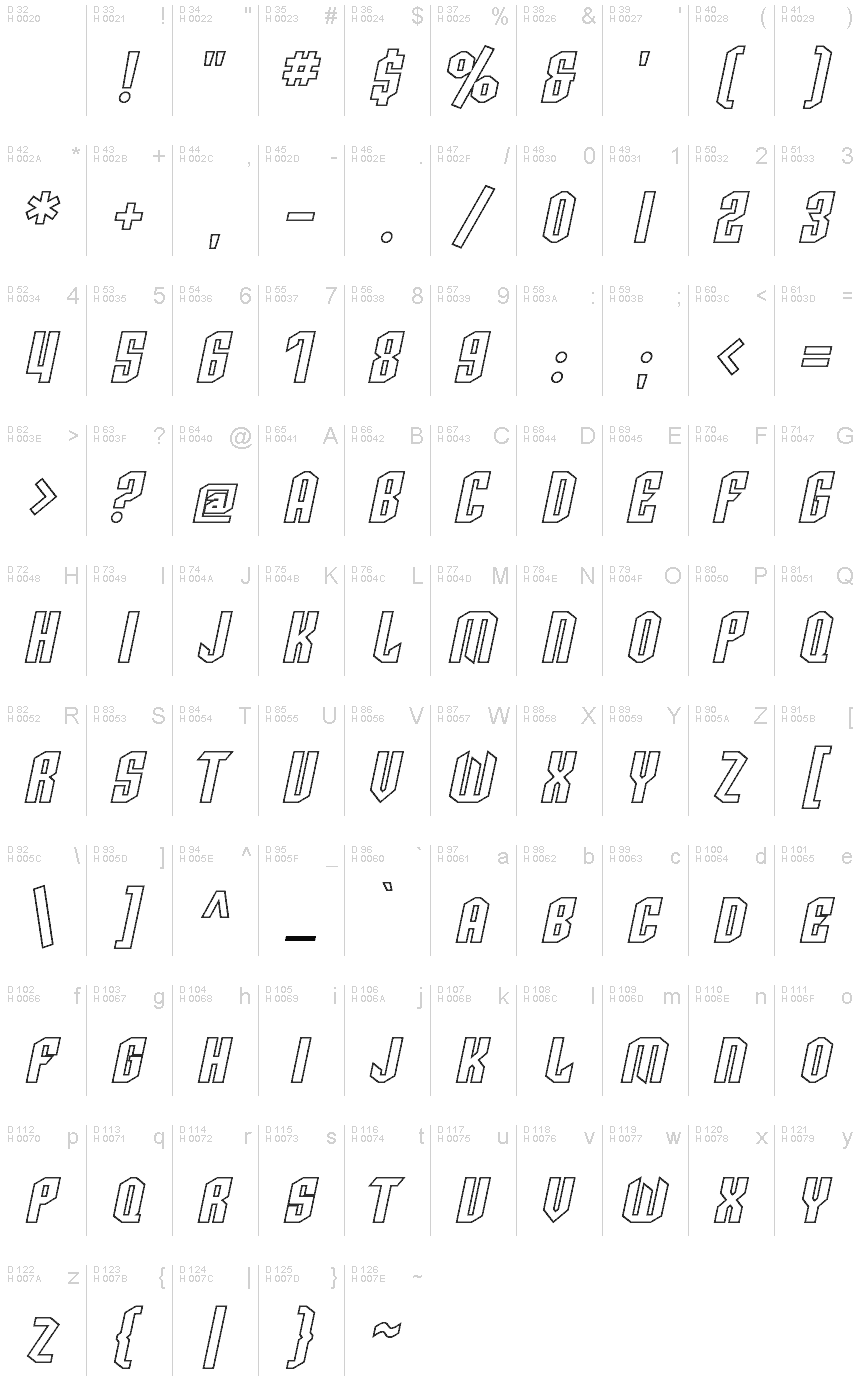
SF Archery Black SC Outline Oblique
SF Archery Black SC Outline Oblique is a striking display font that commands attention with its bold, outlined style and extra-condensed width. Crafted by ShyFonts Type Foundry, this font boasts an oblique stance, adding a dynamic edge to the already sharp character design. Its distinct outline gives it a modern look that's both versatile and visually engaging, making it an exceptional choice for designers looking to add a touch of personality to branding, advertising, posters, and more.
The SF Archery Black family is known for its contemporary flavor that can easily adapt to various creative contexts while maintaining readability and impact. This particular iteration combines solidity with an air of sophistication that can elevate any project requiring standout typography.